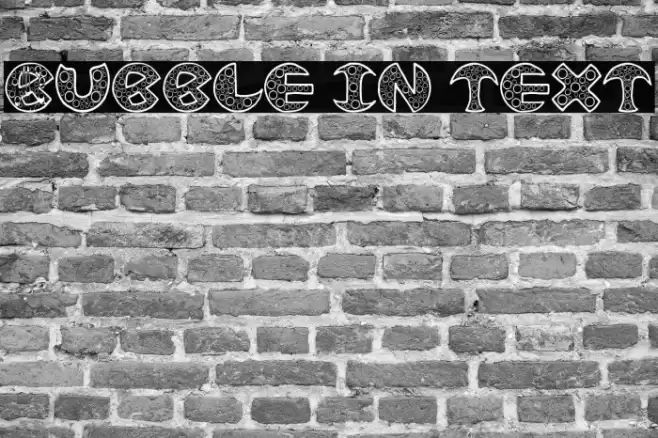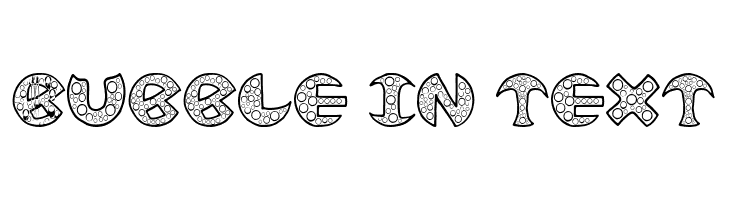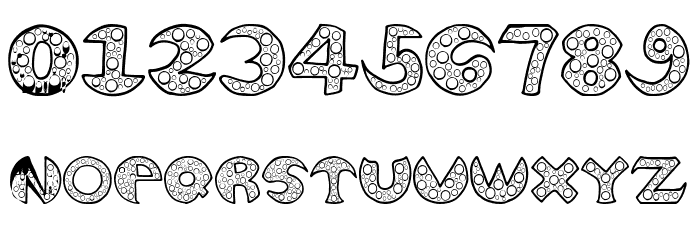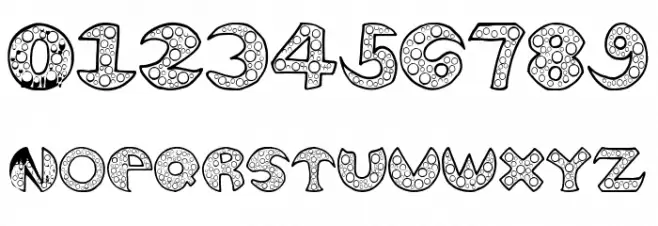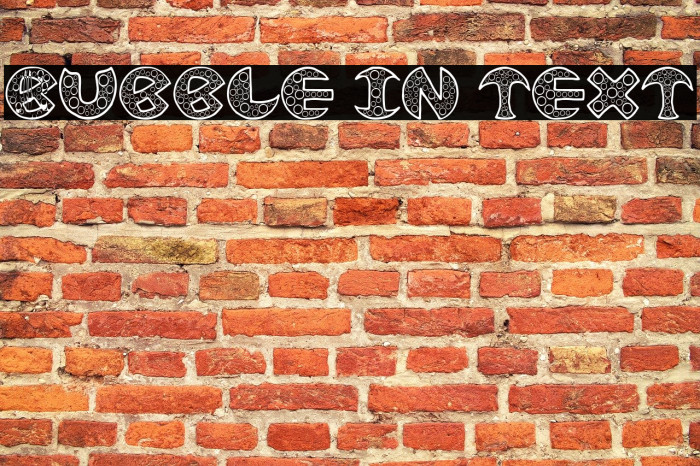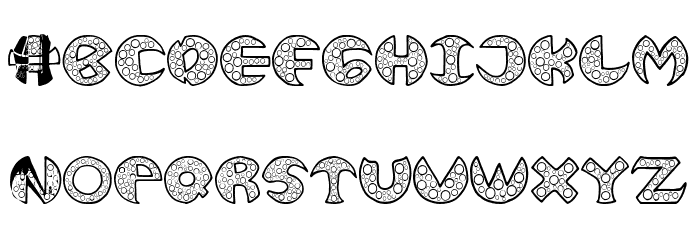
BUBBLE IN TEXT Font
BUBBLE IN TEXT Description
This playful and whimsical font features a bubble-like design, with each character filled with circular patterns that resemble bubbles. The letters are bold and rounded, giving a sense of fun and creativity. The font maintains a consistent style across uppercase, lowercase, and numeric characters, with special characters also following the bubbly theme. The design is intricate, with each letter having a unique arrangement of bubbles, adding to its decorative appeal.
A playful, bubble-themed decorative font with intricate circular patterns from Decorative fonts.
- Proposed Projects: Ideal for children's books, playful branding, party invitations, and creative posters.